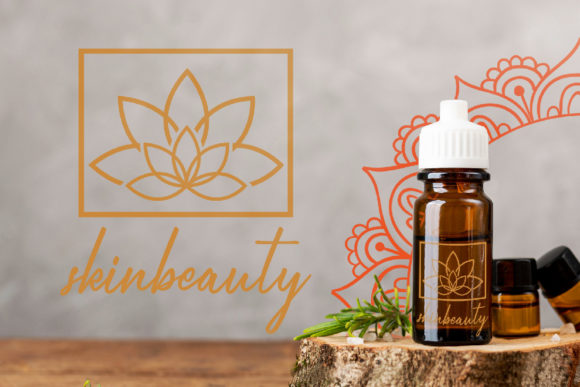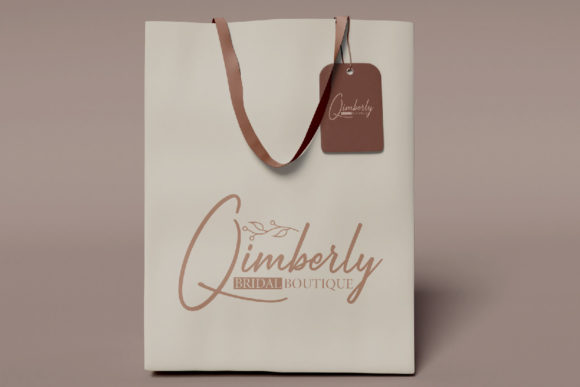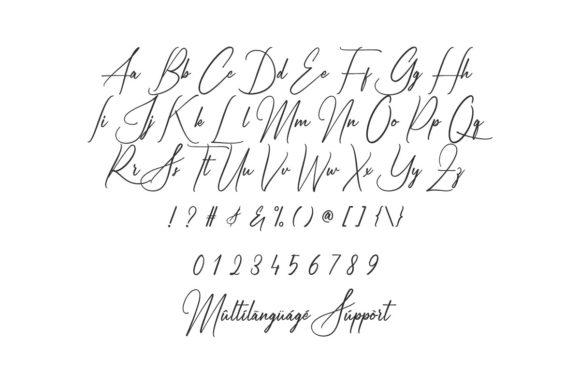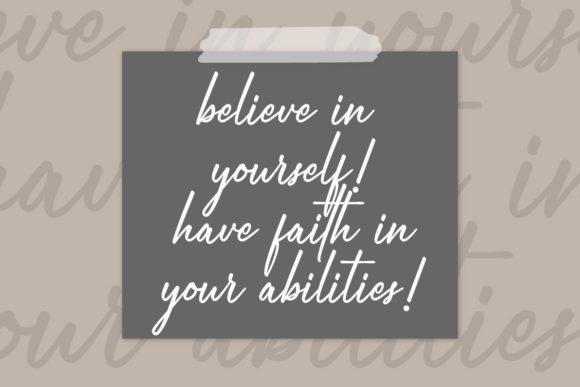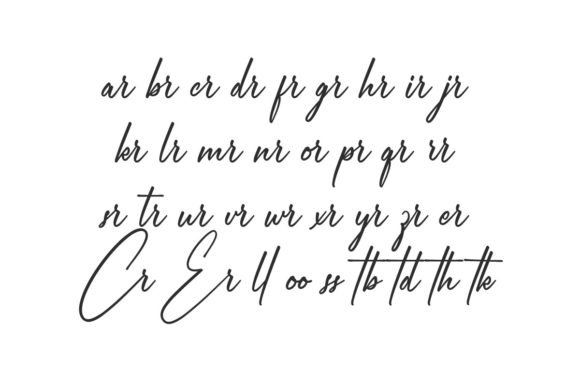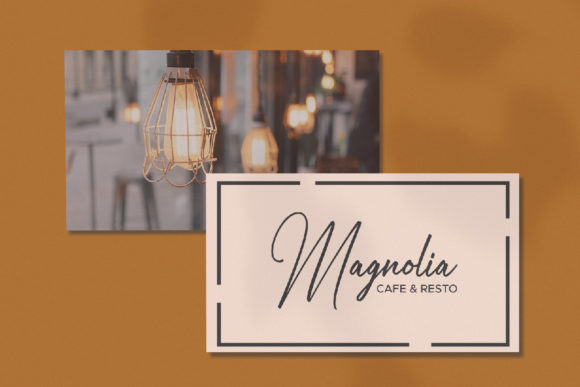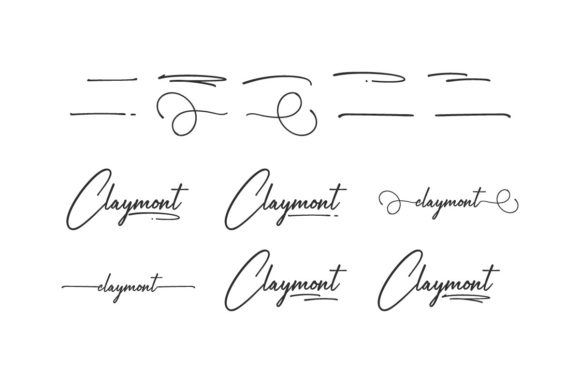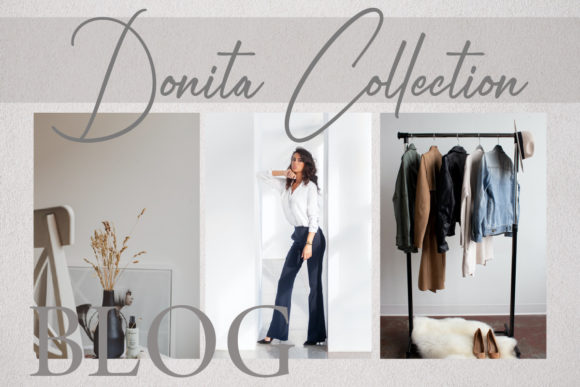
Claymont Font
About Claymont Font
Introducing Claymont, a superb handwritten font that is sure to make your work stand out. This font is characterized by its elegant and curvy lines, which create a sense of authenticity and creativity. It’s not just a font, it’s a tool that brings your designs to life.
The characters in Claymont are elegant and curvy, adding a touch of personality to your designs. The font also includes PUA encoding, giving you the flexibility to access all glyphs and swashes with ease and customize your text to suit your design needs.
Claymont is versatile and can be used in a variety of design projects. It’s perfect for product packaging, where it can help your product stand out on the shelf. It’s also great for branding projects, where its unique style can help establish a strong brand identity.
For magazine covers, Claymont can make your titles pop and draw in your audience. Whether your text is short or long, Claymont can handle it. The font maintains its readability and charm no matter the length of the text.
One of the best features of Claymont is its compatibility with other designs. It works great on social media posts, where its unique style can catch the eye and engage your audience. It’s also perfect for weddings, adding a touch of elegance to your invitations and decor.
In conclusion, Claymont is more than just a font. It’s a design asset that can elevate your work and make it stunning. Whether you’re designing a logo, crafting a social media post, or creating a movie title, Claymont can help you achieve your design goals. So why wait? Start creating stunning work with Claymont today!